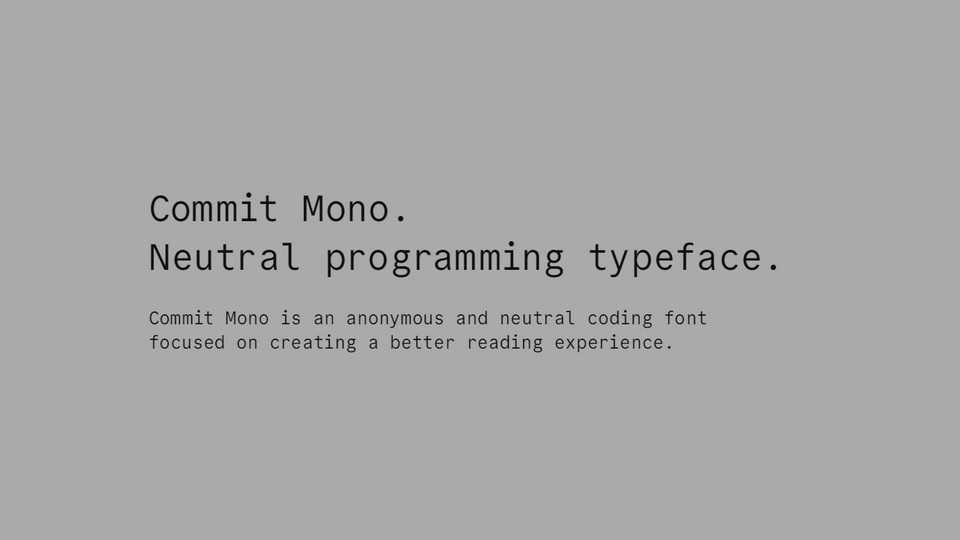
Download Commit Mono font, an anonymous and neutral coding font focused on creating a better reading experience. Commit Mono is designed and tested for code first. Characters frequently used in code have been given extra care to look distinct and neat.